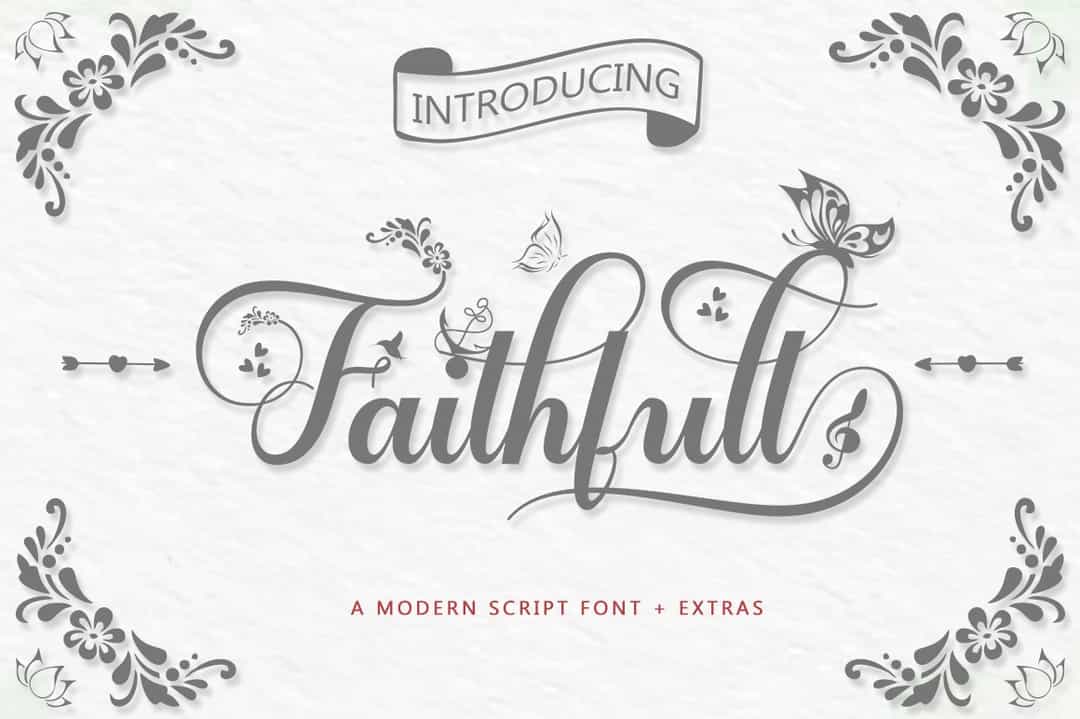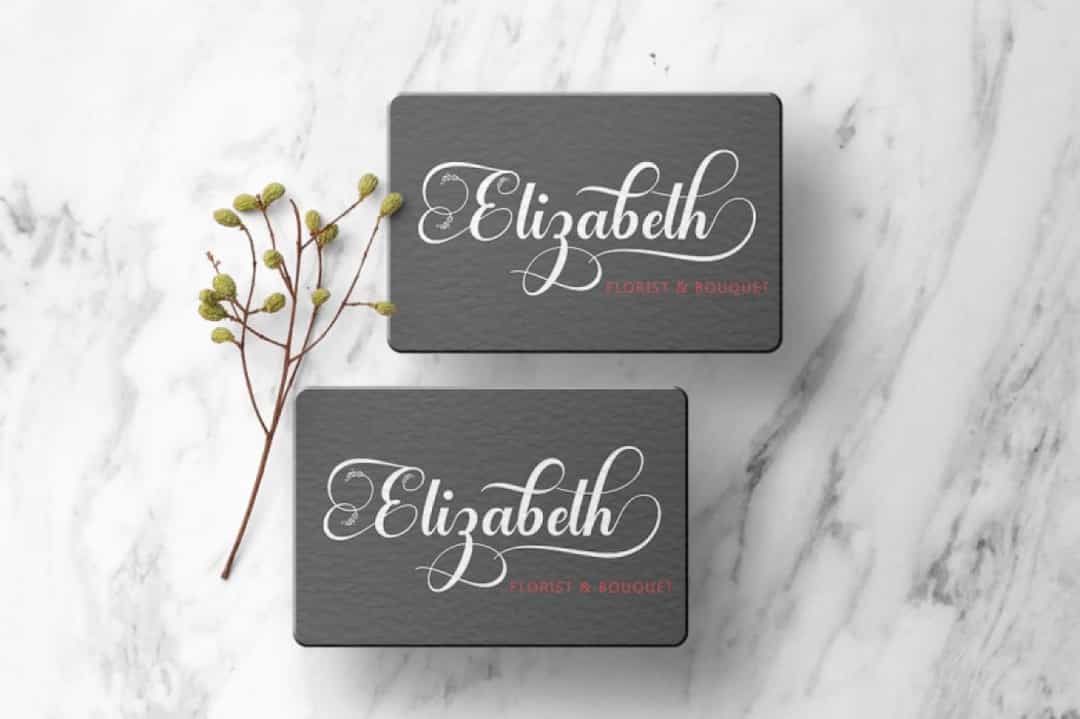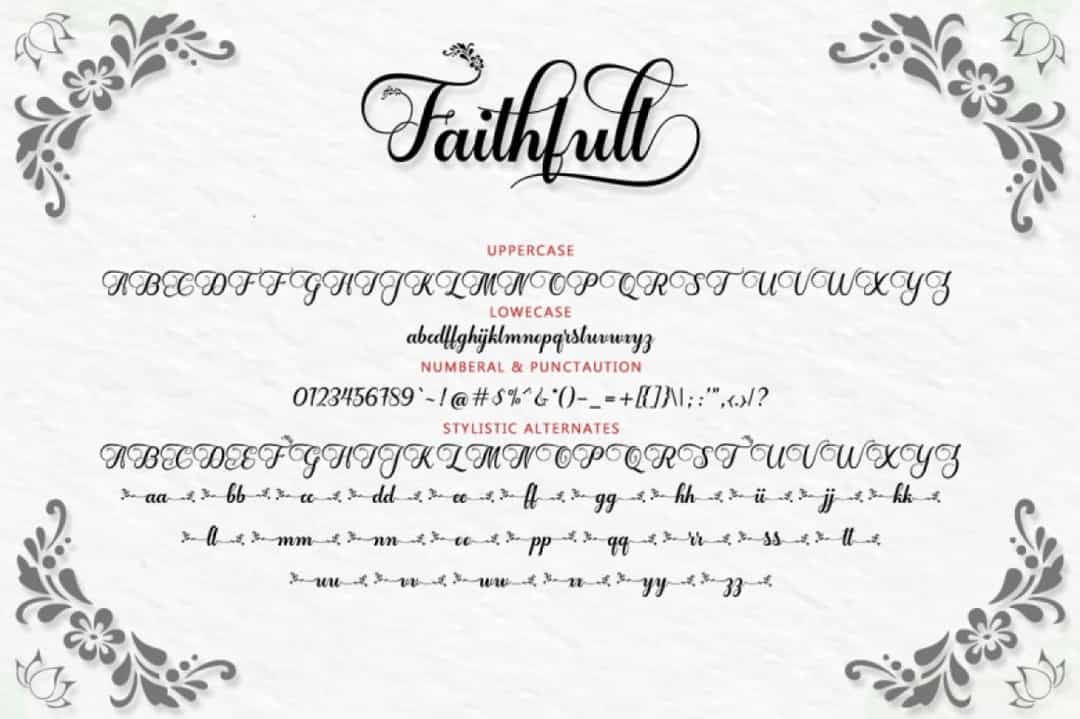
Faithfull is one of the best calligraphy fonts that I have come across. Watch what it can do in designing wonderful wedding invitations, aesthetically pleasing stationery, interesting posts on Instagram and many more!